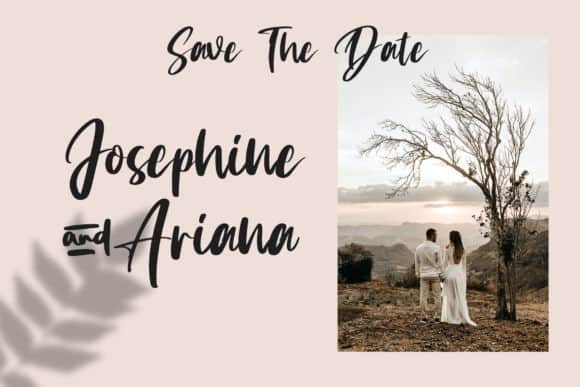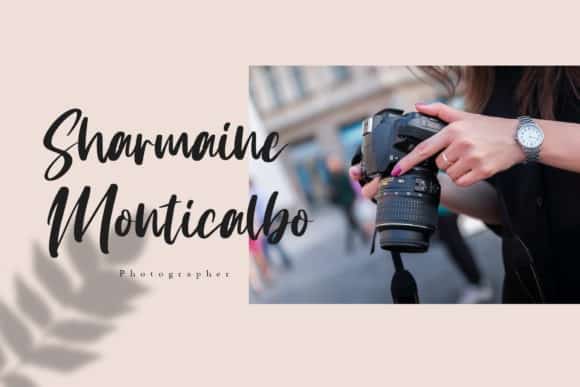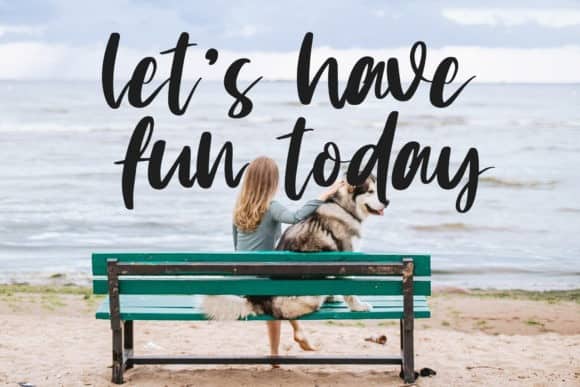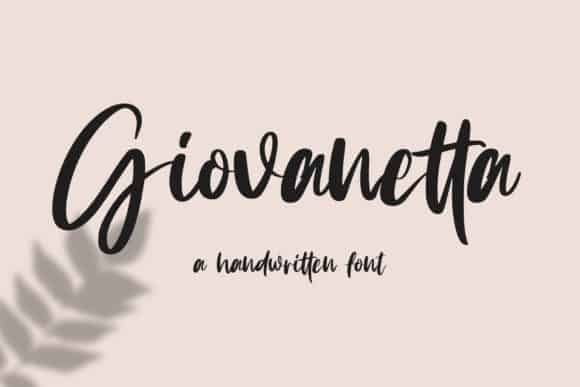
Introducing Giovanetta Script Font. It’s a new bold inky font with a casual handwritten feel. Perfect for making eye-catching headlines and head-turning statements! It is design and shared by Vz_Type. Giovanetta Script Font is a cute and casual handwritten font with an incredibly friendly feel. Whether you’re looking for fonts for Instagram or calligraphy scripts for DIY projects, this font will turn any creative idea into a true piece of art!